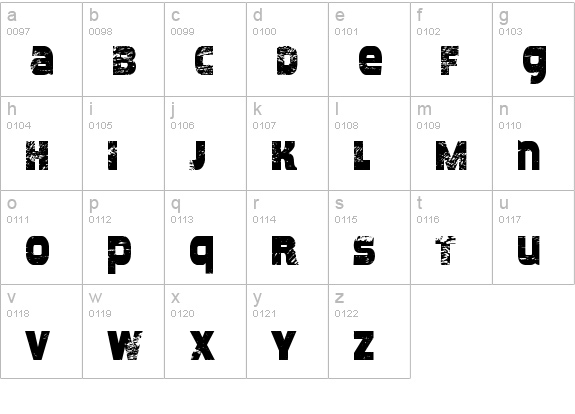
Meposa Stamp Font Details
Meposa Stamp font is a unique and eye-catching typeface that adds a touch of creativity to any design project. Its bold and rugged appearance makes it perfect for posters, logos, and other graphic designs that require a strong and impactful look. The distressed texture of the letters gives a vintage and handmade feel, adding character and charm to your work. This versatile font is freely available to download at FontsMarket.com, making it accessible to designers and creatives looking to enhance their projects without breaking the bank. With Meposa Stamp font, you can easily create standout designs that stand out from the crowd and make a lasting impression. Whether you're working on a branding project, advertising campaign, or personal art piece, this font is sure to make a statement. Get your hands on Meposa Stamp font today and take your designs to the next level!